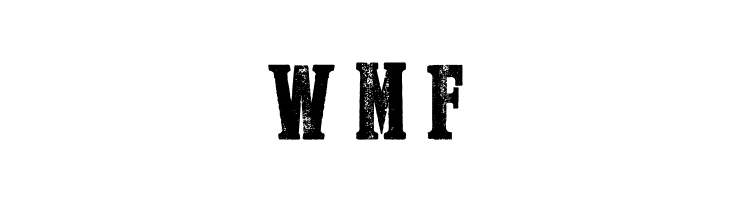
A bold, circular font with playful, enclosed characters.
A bold, decorative font with intricate, layered designs and a modern flair.
A bold, decorative font with a mosaic texture, perfect for striking headlines.
A playful, striped decorative font ideal for festive designs.
A playful and flowing script font with smooth, rounded curves.
A bold, playful font with a unique plaid pattern and three-dimensional appearance.
A bold, distressed font with a textured, vintage appearance.